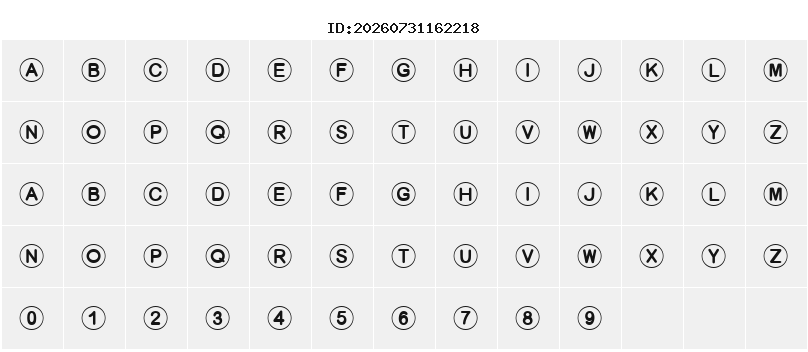
• Font Name: Letter Beads
• Designer: Ronna Penner
• Manufacturer: Typadelic Fonts
About Letter Beads.ttf
Letter Beads.ttf is a modern, elegant sans-serif font designed for ultimate readability and visual harmony. Perfect for branding, headlines, web design, and print materials.